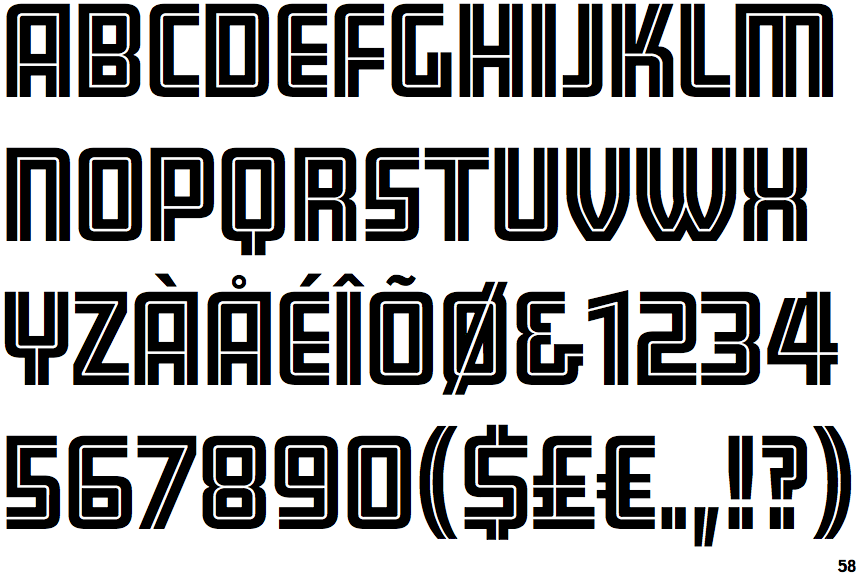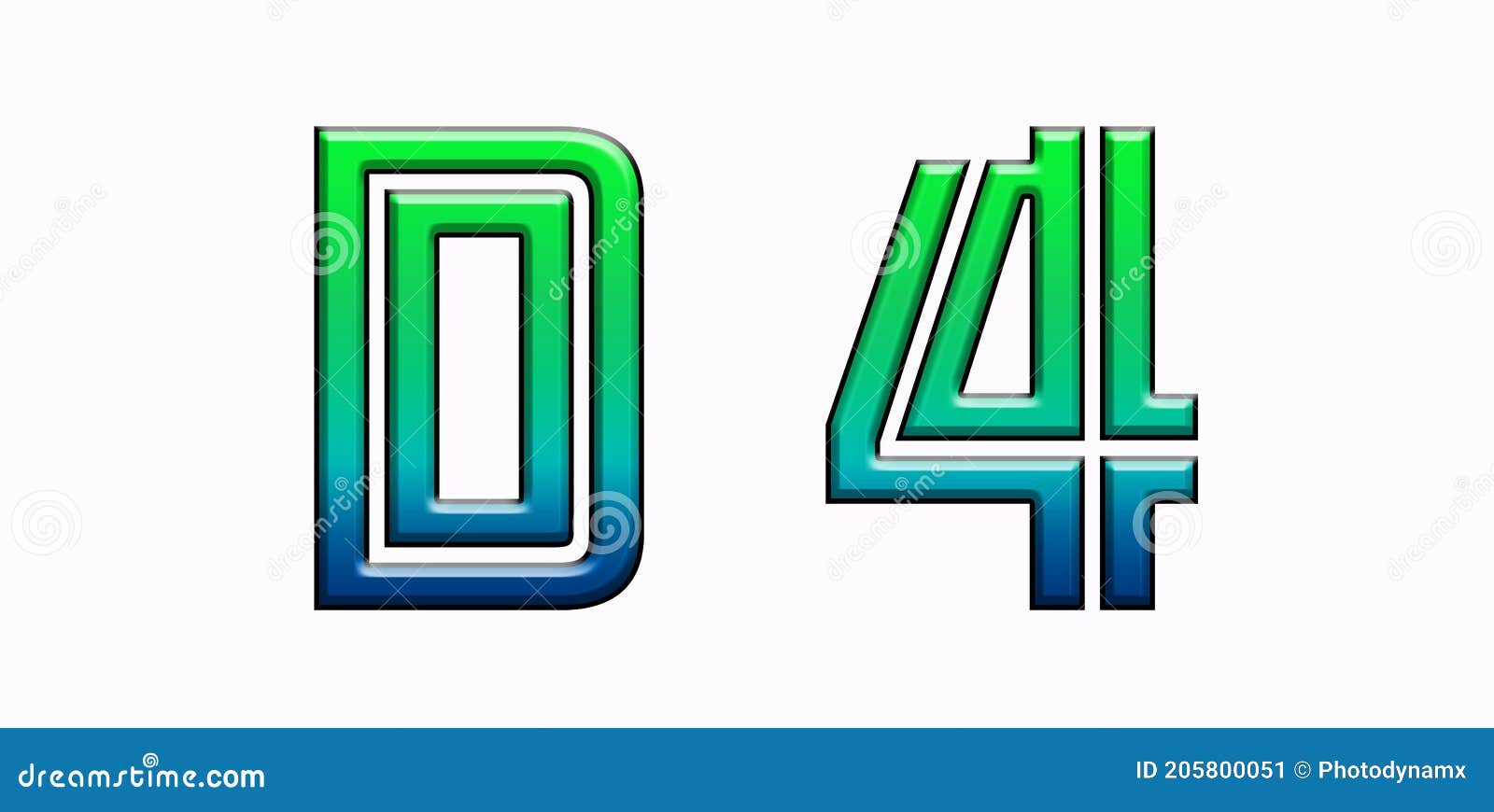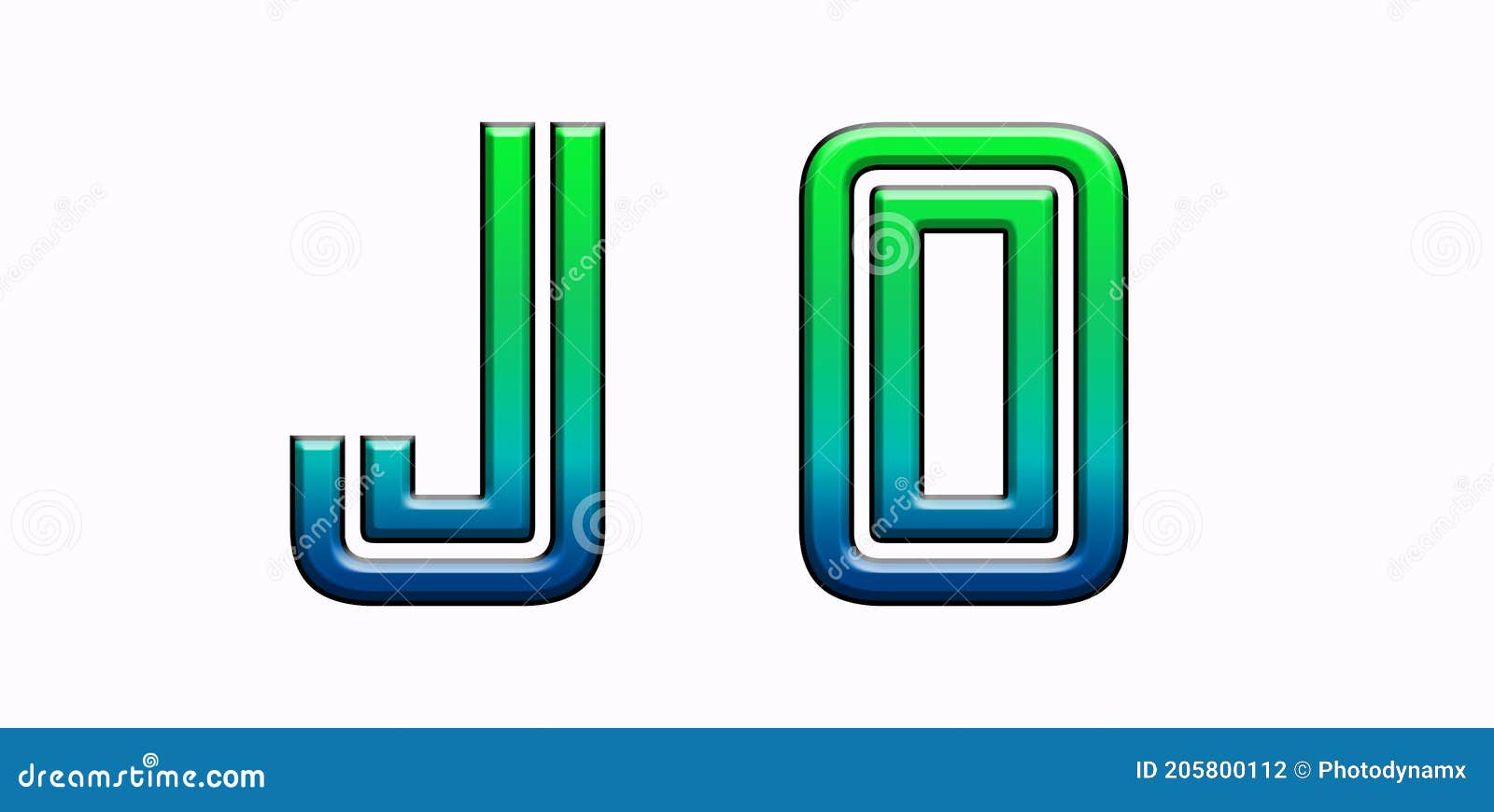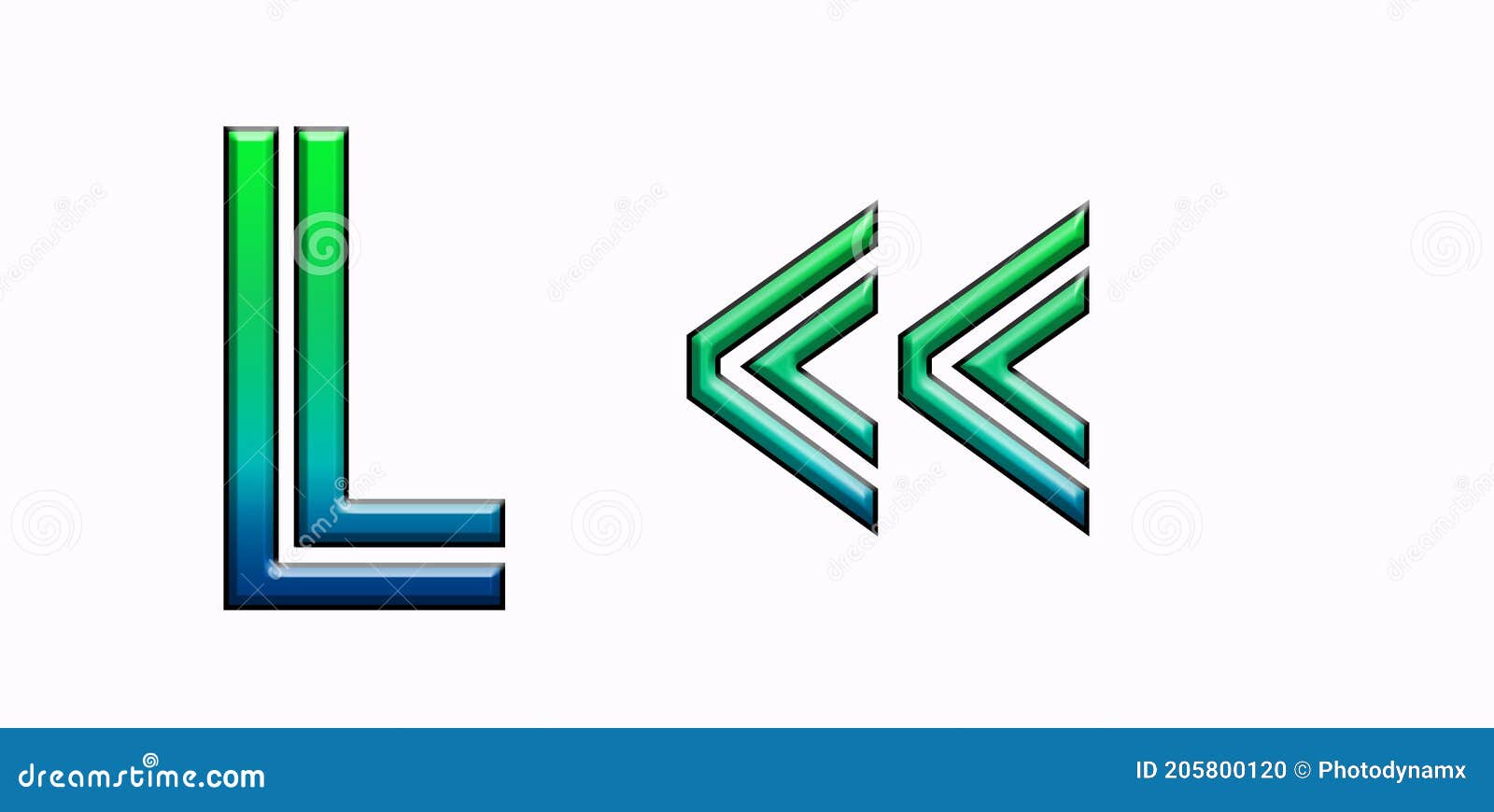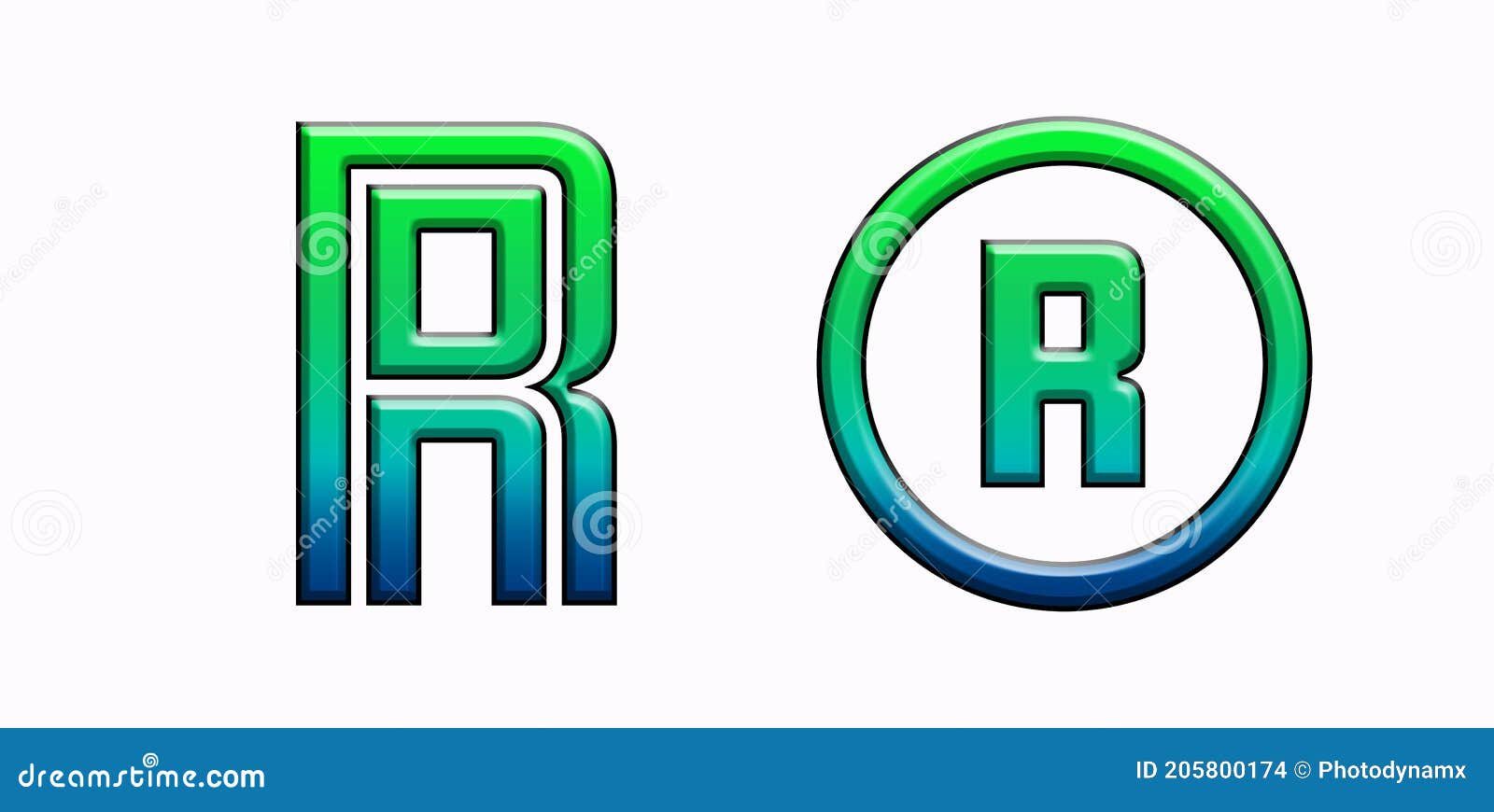
Amboy Black Font
Amboy Black Font - Amboy inline and amboy black. A decorative typeface with 2 styles, available from adobe fonts for. Web explore amboy designed by jim parkinson at adobe fonts. Web amboy™ black | fonts.com. The black font will work on its own, but it’s carefully.
The black font will work on its own, but it’s carefully. Amboy inline and amboy black. A decorative typeface with 2 styles, available from adobe fonts for. Web explore amboy designed by jim parkinson at adobe fonts. Web amboy™ black | fonts.com.
The black font will work on its own, but it’s carefully. Web explore amboy designed by jim parkinson at adobe fonts. Amboy inline and amboy black. Web amboy™ black | fonts.com. A decorative typeface with 2 styles, available from adobe fonts for.
Web amboy™ black | fonts.com. Amboy inline and amboy black. A decorative typeface with 2 styles, available from adobe fonts for. Web explore amboy designed by jim parkinson at adobe fonts. The black font will work on its own, but it’s carefully.
Amboy Inline Gradient Sans Serif Alphabet Letters Calligraphy Letter
Web amboy™ black | fonts.com. Amboy inline and amboy black. The black font will work on its own, but it’s carefully. A decorative typeface with 2 styles, available from adobe fonts for. Web explore amboy designed by jim parkinson at adobe fonts.
Amboy Inline Gradient Sans Serif Alphabet Letters Calligraphy Letter
Web amboy™ black | fonts.com. Amboy inline and amboy black. A decorative typeface with 2 styles, available from adobe fonts for. Web explore amboy designed by jim parkinson at adobe fonts. The black font will work on its own, but it’s carefully.
Amboy Inline Gradient Sans Serif Alphabet Letters Calligraphy Letter
A decorative typeface with 2 styles, available from adobe fonts for. Web explore amboy designed by jim parkinson at adobe fonts. Web amboy™ black | fonts.com. The black font will work on its own, but it’s carefully. Amboy inline and amboy black.
Web explore amboy designed by jim parkinson at adobe fonts. The black font will work on its own, but it’s carefully. A decorative typeface with 2 styles, available from adobe fonts for. Amboy inline and amboy black. Web amboy™ black | fonts.com.
Amboy Regular
A decorative typeface with 2 styles, available from adobe fonts for. Amboy inline and amboy black. Web amboy™ black | fonts.com. Web explore amboy designed by jim parkinson at adobe fonts. The black font will work on its own, but it’s carefully.
The black font will work on its own, but it’s carefully. Web explore amboy designed by jim parkinson at adobe fonts. Amboy inline and amboy black. Web amboy™ black | fonts.com. A decorative typeface with 2 styles, available from adobe fonts for.
Amboy Black
A decorative typeface with 2 styles, available from adobe fonts for. Amboy inline and amboy black. The black font will work on its own, but it’s carefully. Web amboy™ black | fonts.com. Web explore amboy designed by jim parkinson at adobe fonts.
Amboy Inline Gradient Sans Serif Alphabet Letters Calligraphy Letter
A decorative typeface with 2 styles, available from adobe fonts for. Web amboy™ black | fonts.com. Amboy inline and amboy black. The black font will work on its own, but it’s carefully. Web explore amboy designed by jim parkinson at adobe fonts.
Web explore amboy designed by jim parkinson at adobe fonts. The black font will work on its own, but it’s carefully. Amboy inline and amboy black. A decorative typeface with 2 styles, available from adobe fonts for. Web amboy™ black | fonts.com.
Amboy Inline And Amboy Black.
A decorative typeface with 2 styles, available from adobe fonts for. Web explore amboy designed by jim parkinson at adobe fonts. Web amboy™ black | fonts.com. The black font will work on its own, but it’s carefully.